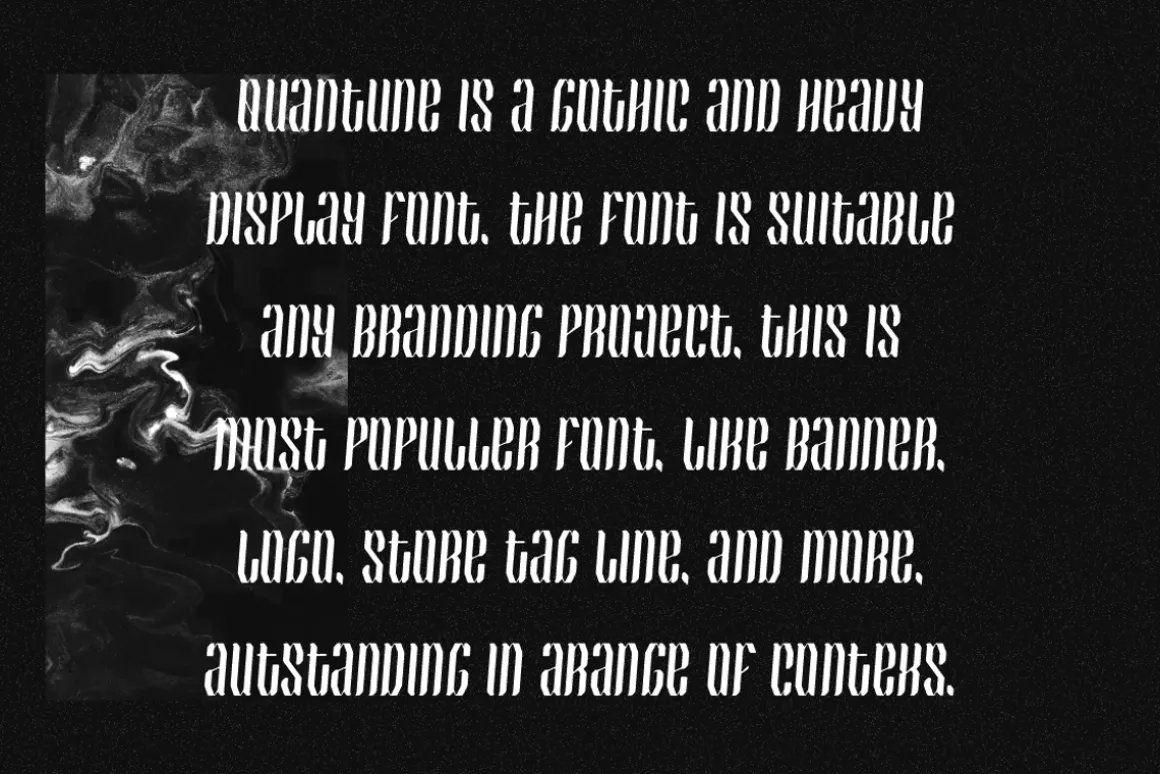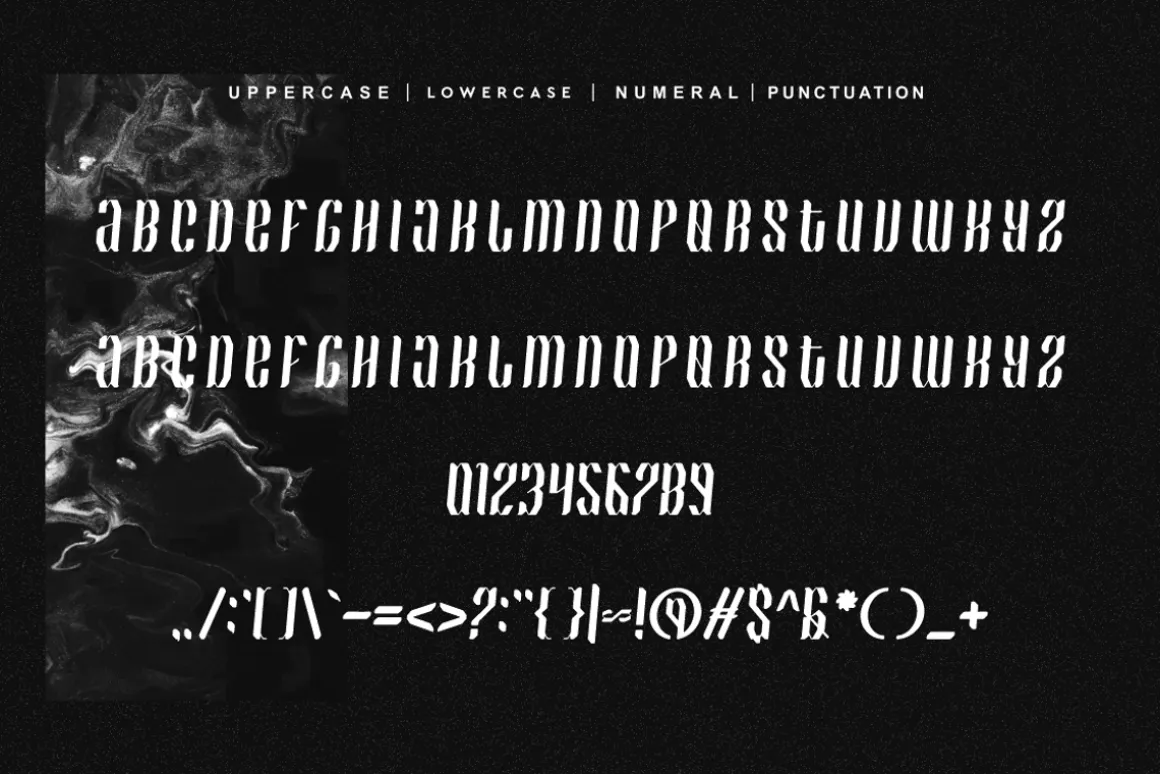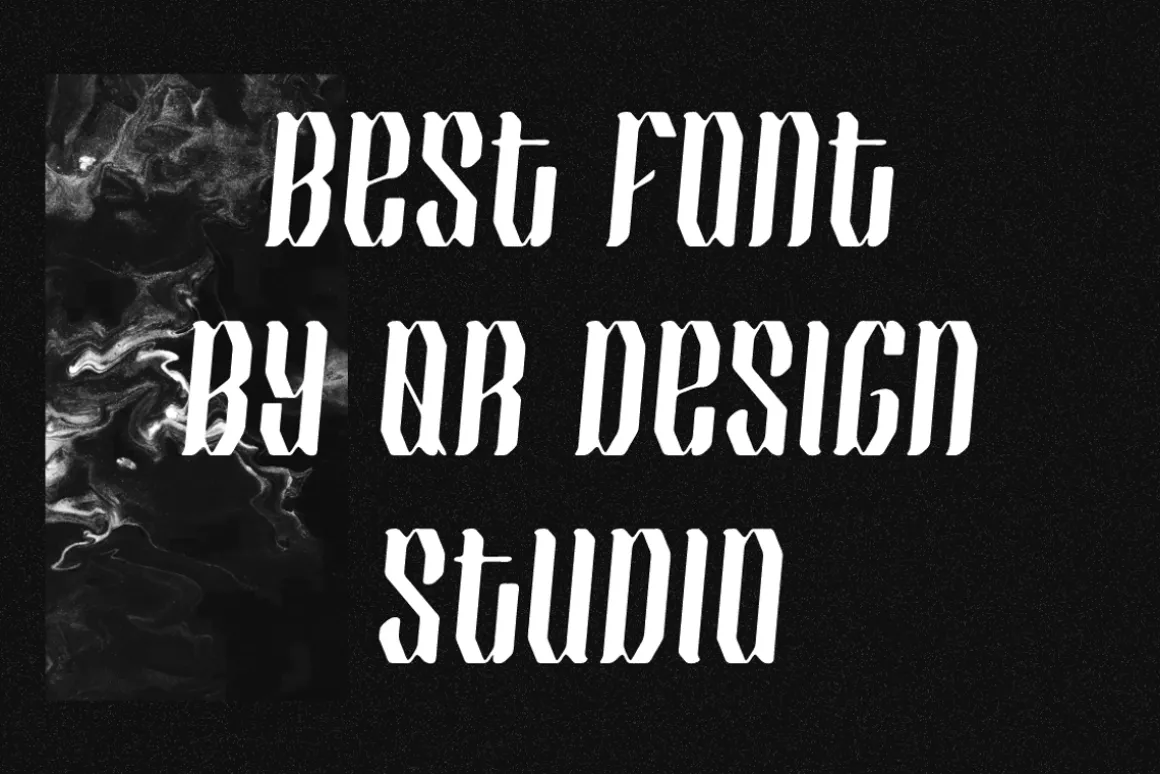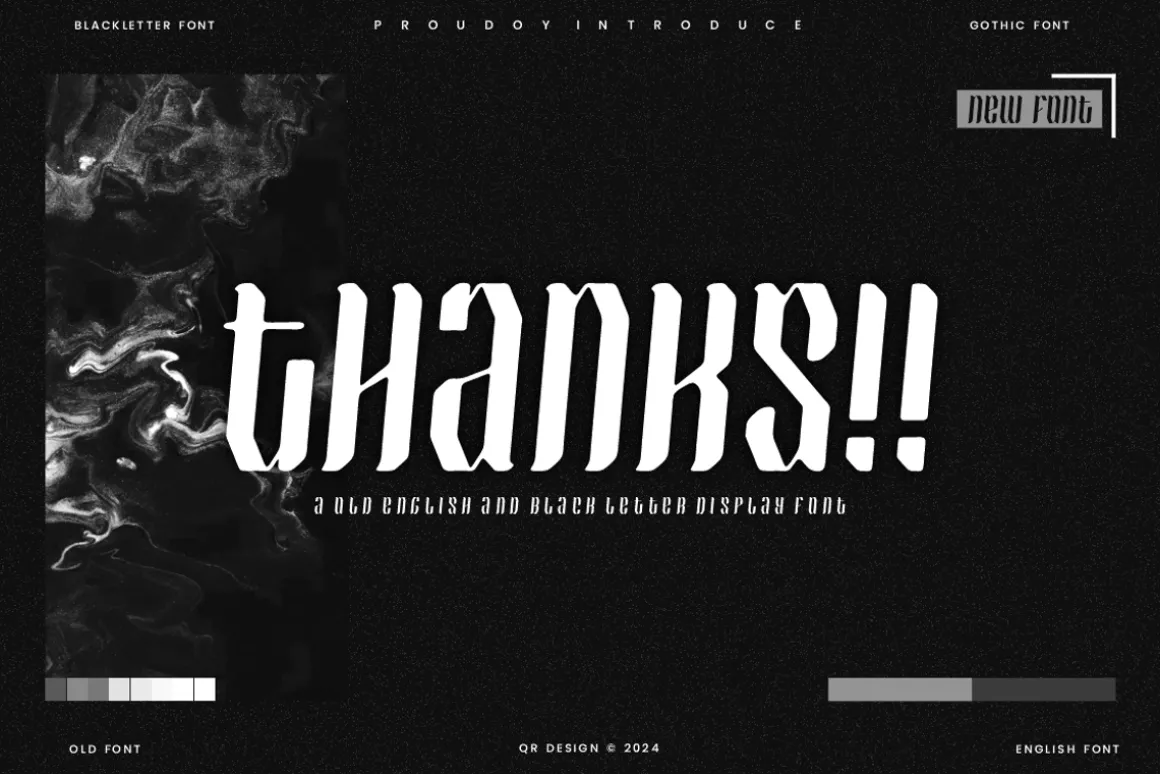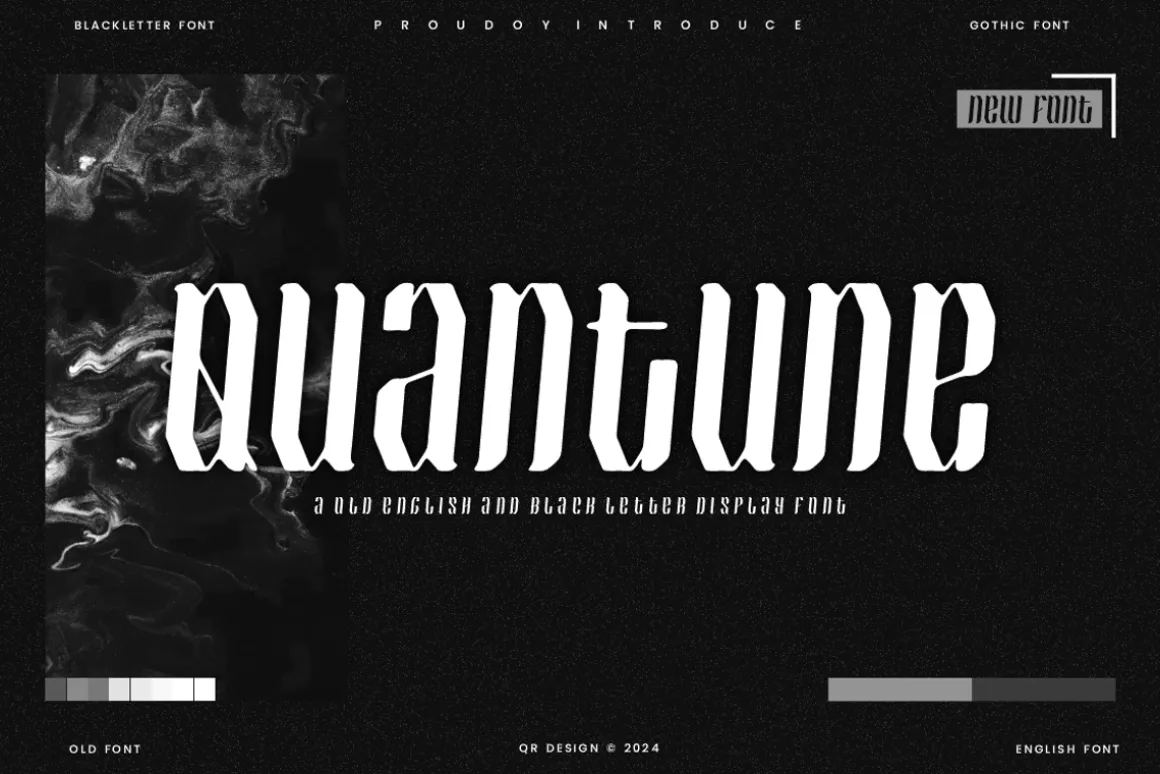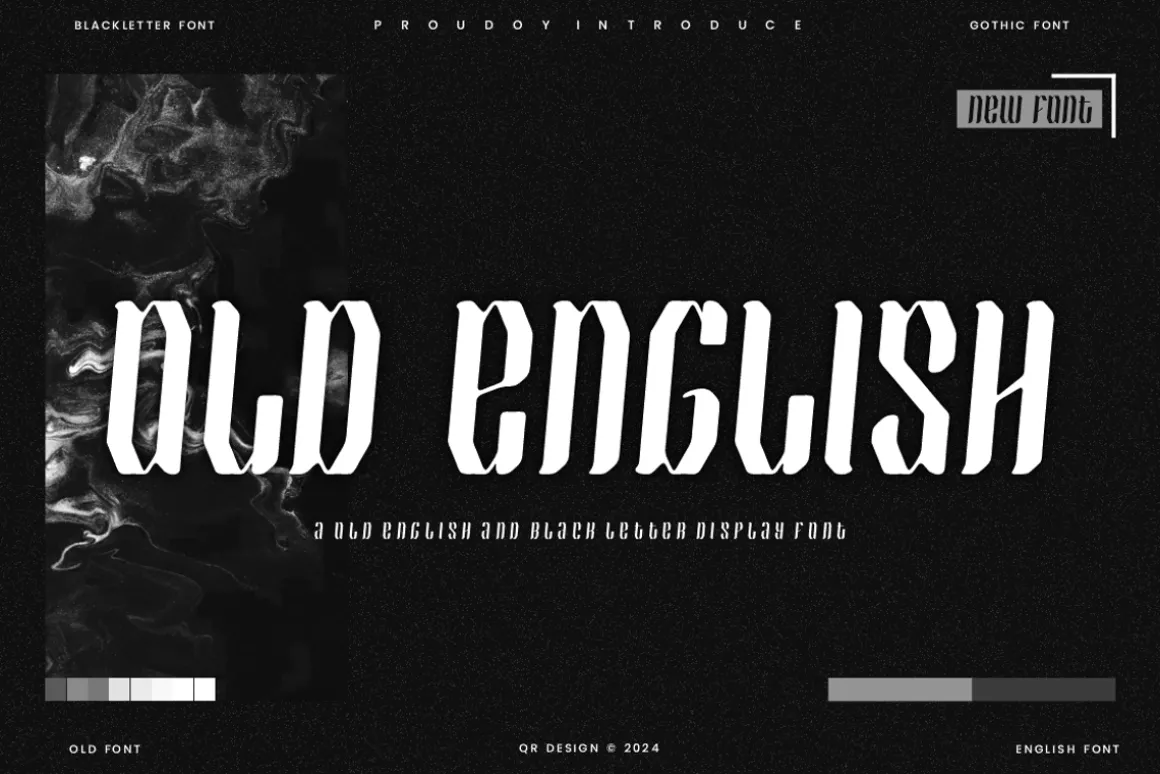
Quantune – Old English Font is a bold and authentic display font.The font is suitable for any branding project like poster, logo, sport, and many more.Outstanding in a wide range of contexts.